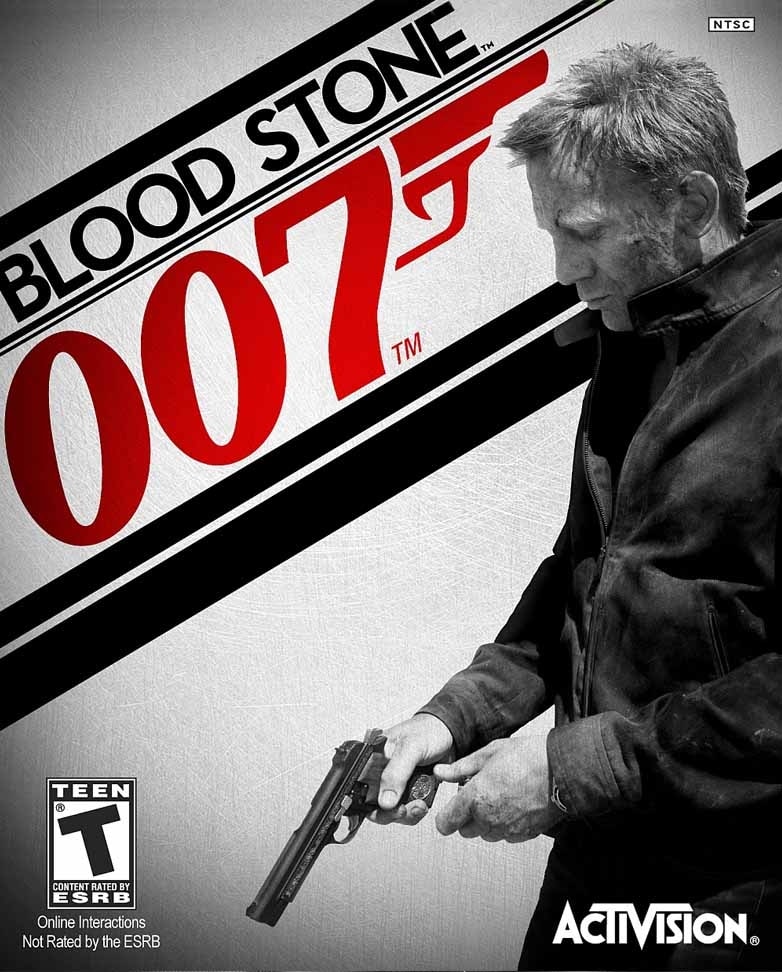
James Bond 007: Blood Stone Font
Fonts in UseJames Bond 007: Blood Stone is a third-person shooter video game released in 2010. It features an original story with Daniel Craig reprising his role as James Bond and includes driving sequences and multiplayer modes.
The logo of the game features the Neutra Text Bold typeface, a geometric sans-serif font created by Christian Schwartz for House Industries. The font can be previewed and purchased here. Additionally, the "007" portion of the logo utilizes the 007 GoldenEye font, which can be downloaded for free from the Fonts Used Section.